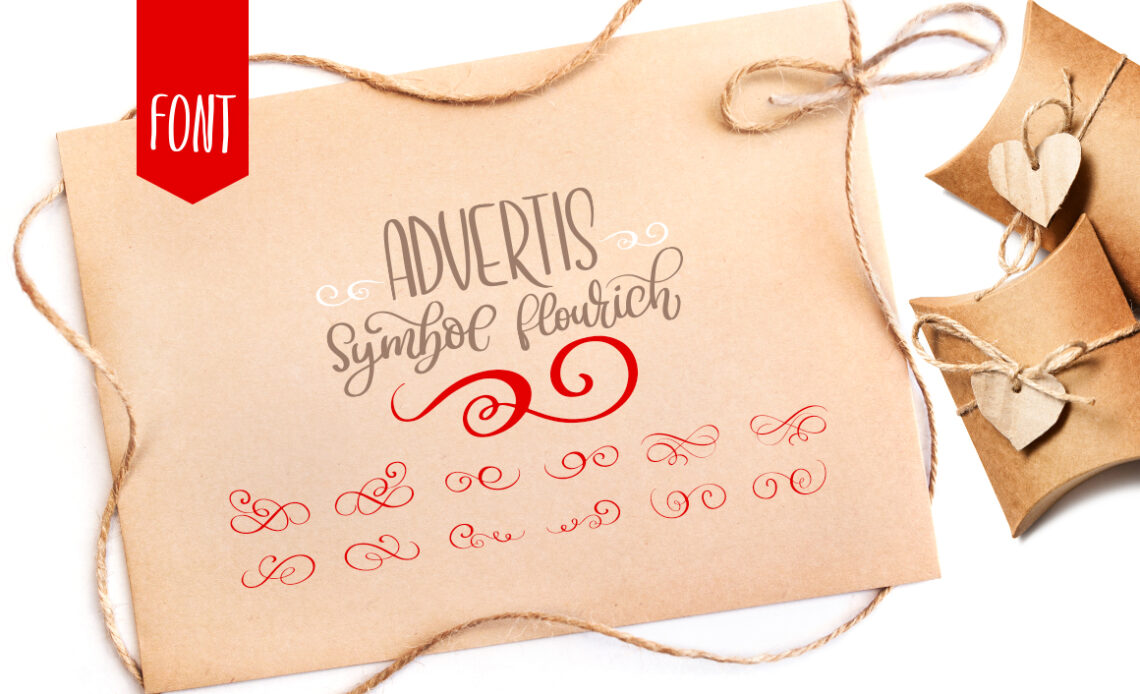
Advertis Font: A Stroke of Art for Your Special Occasion
In a world where words fail to capture the essence of your emotions, Advertis Font emerges as a visual symphony, a dance of characters that ignite the imagination and stir the soul. Designed by the ingenious minds at Happy Letters, Advertis Font belongs to the distinguished dingbats font family, renowned for its whimsical charm and boundless versatility.
With Advertis Font, you hold the key to unlocking a realm of creativity, a universe where your ideas take flight and your designs bloom into masterpieces. Its thin, elegant calligraphic lines, as delicate as a gentle breeze, breathe life into your handmade creations, infusing them with freshness and an ethereal dreaminess.
Picture this: a wedding invitation adorned with Advertis Font's graceful strokes, each letter a testament to the love and joy of the occasion. The menu cards, bearing the names of delectable dishes in Advertis Font's elegant script, become a culinary symphony, promising a feast for the senses. Thank-you notes, crafted with Advertis Font's intricate flourishes, convey gratitude with a touch of artistry, leaving a lasting impression on the recipient's heart.
Advertis Font's versatility extends far beyond the realm of weddings. Its playful spirit lends itself effortlessly to birthday cards, party invitations, and greeting cards, transforming ordinary messages into extraordinary expressions of affection. Its unique flourishes, reminiscent of delicate ornaments, add a touch of charm to logos, branding materials, and social media graphics, ensuring your brand stands out from the crowd.
Whether you're a seasoned designer seeking to elevate your work or a creative enthusiast exploring new avenues of expression, Advertis Font is your muse, your faithful companion in the realm of visual storytelling. Its intuitive design makes it a joy to use, allowing your creativity to flow effortlessly, unhindered by technical complexities.
Join the league of discerning designers who have embraced Advertis Font's allure, unlocking the potential of their imagination and leaving an indelible mark on the world of design. Let Advertis Font be your guiding light, illuminating your path to creative triumph. Embrace its magic, and witness the transformation of your designs into works of art, captivating hearts and igniting imaginations.